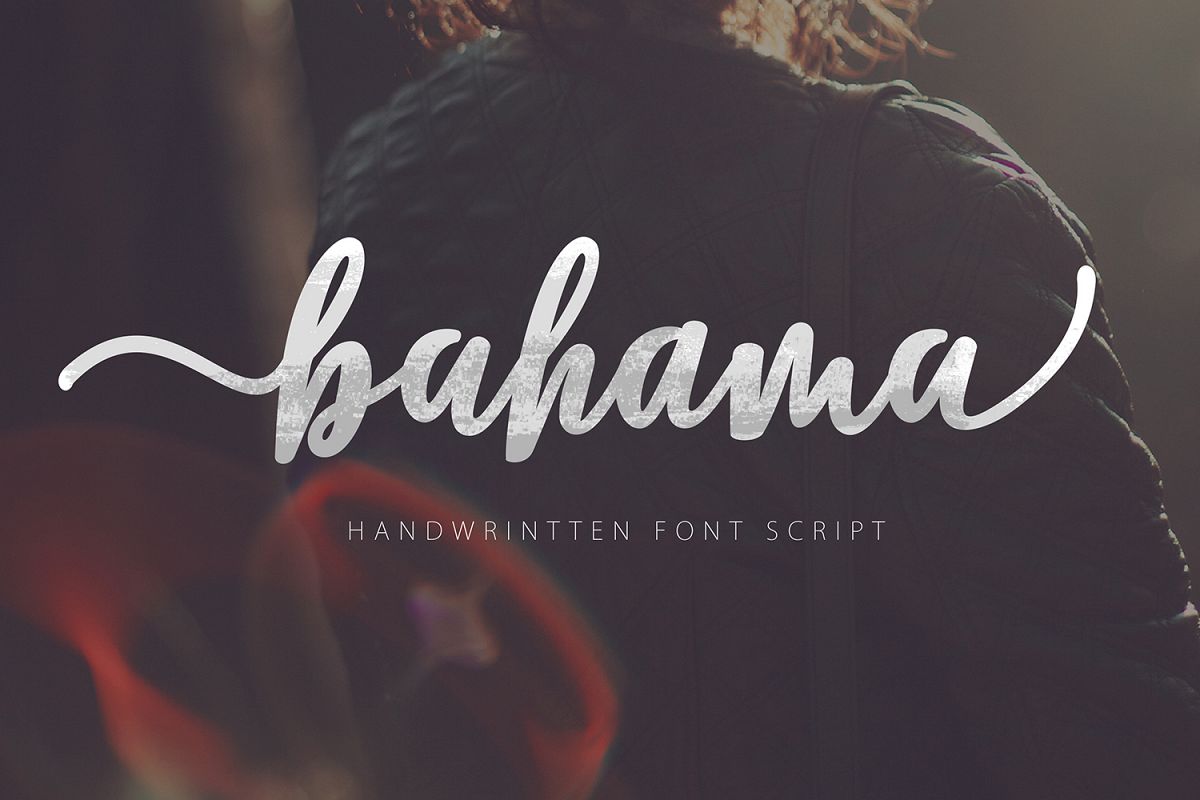
Bahama Script
Bahama Script font style comes with an amazing character. Ideal for a logo, a name tag, handwritten quotations, product packaging, goods, social media and greeting cards. It contains a complete set of lower and upper case letters, assorted punctuation, numbers, and support multi language.you also easy to access these fonts because I've given PUA unicode (font specific code), with tons of character alternatives. This package can be accessed in full by a craftsman or designer.Fonts Included:
Bahama Script also provided some ligatures and contextual alternatives to lowercase characters, can be accessed in Adobe Illustrator Glyphs panel, or under Stylistic Alternates in Adobe Photoshop OpenType panel.enjoy: